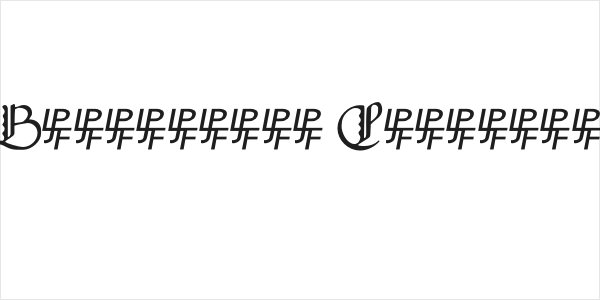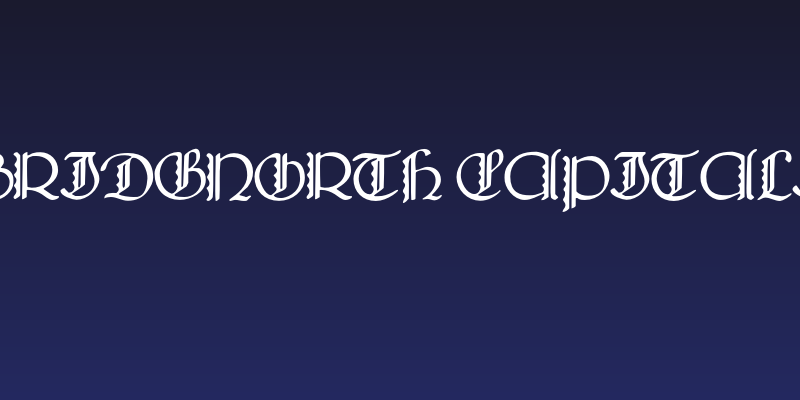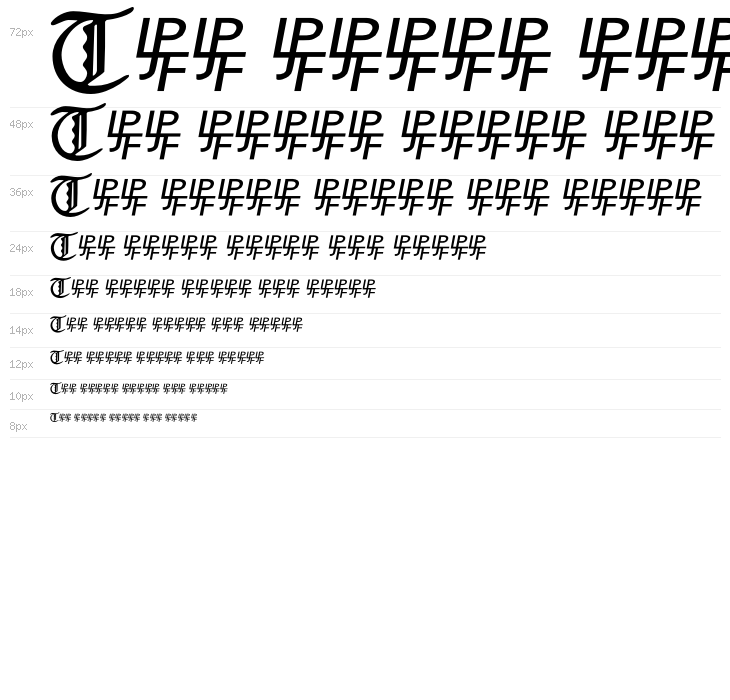
Bridgnorth Capitals Font
Bridgnorth Capitals Description
This font exhibits a classic Blackletter style, characterized by its ornate and intricate design. The uppercase letters feature sharp, angular lines with decorative serifs, giving them a medieval and gothic appearance. The strokes are bold and consistent, with a high contrast between thick and thin lines, enhancing the dramatic and historical feel of the typeface. The overall design is highly decorative, making it suitable for projects that require a touch of elegance and tradition.
Paul Lloyd Fonts
| Proposed Projects | Ideal for historical documents, certificates, wedding invitations, and branding that requires a traditional or gothic aesthetic. |